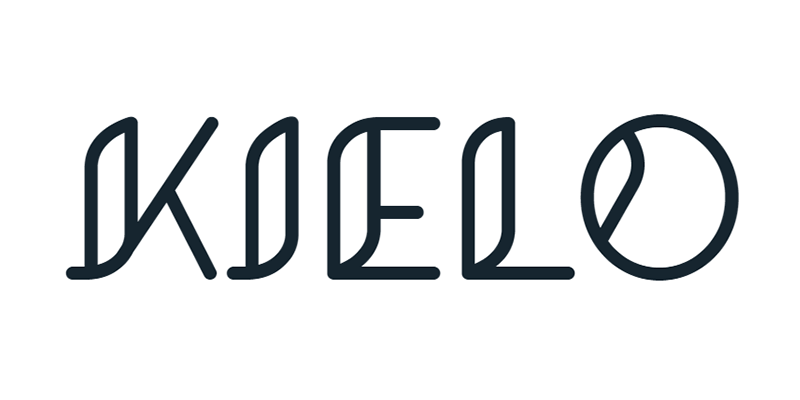
Kielo: Headline Typeface (OTF)
A headline font with a linear stylish structure and over 150 glyphs. It includes alphabet in uppercase, numbers and lots of special characters with diacritics to complement the support with additional languages. Designed by mikkonuuttila, free for commercial and personal projects.